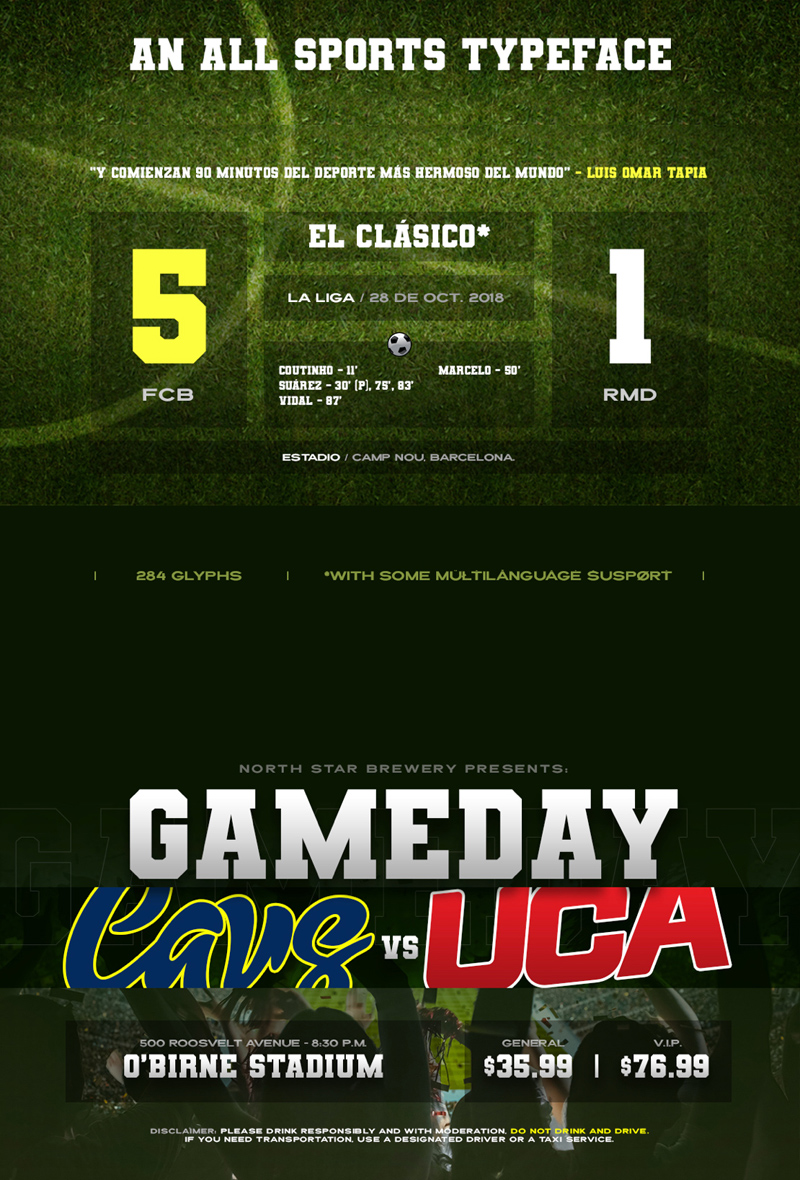
Varsity Team Font
Varsity Team is inspired by that school pride spirit, created for a 20 years class reunion t-shirt, I draw my inspirations from the bold and blocky memories that I have from school, with straight and clean lines, with bold heads and clunky feet, comes a t…